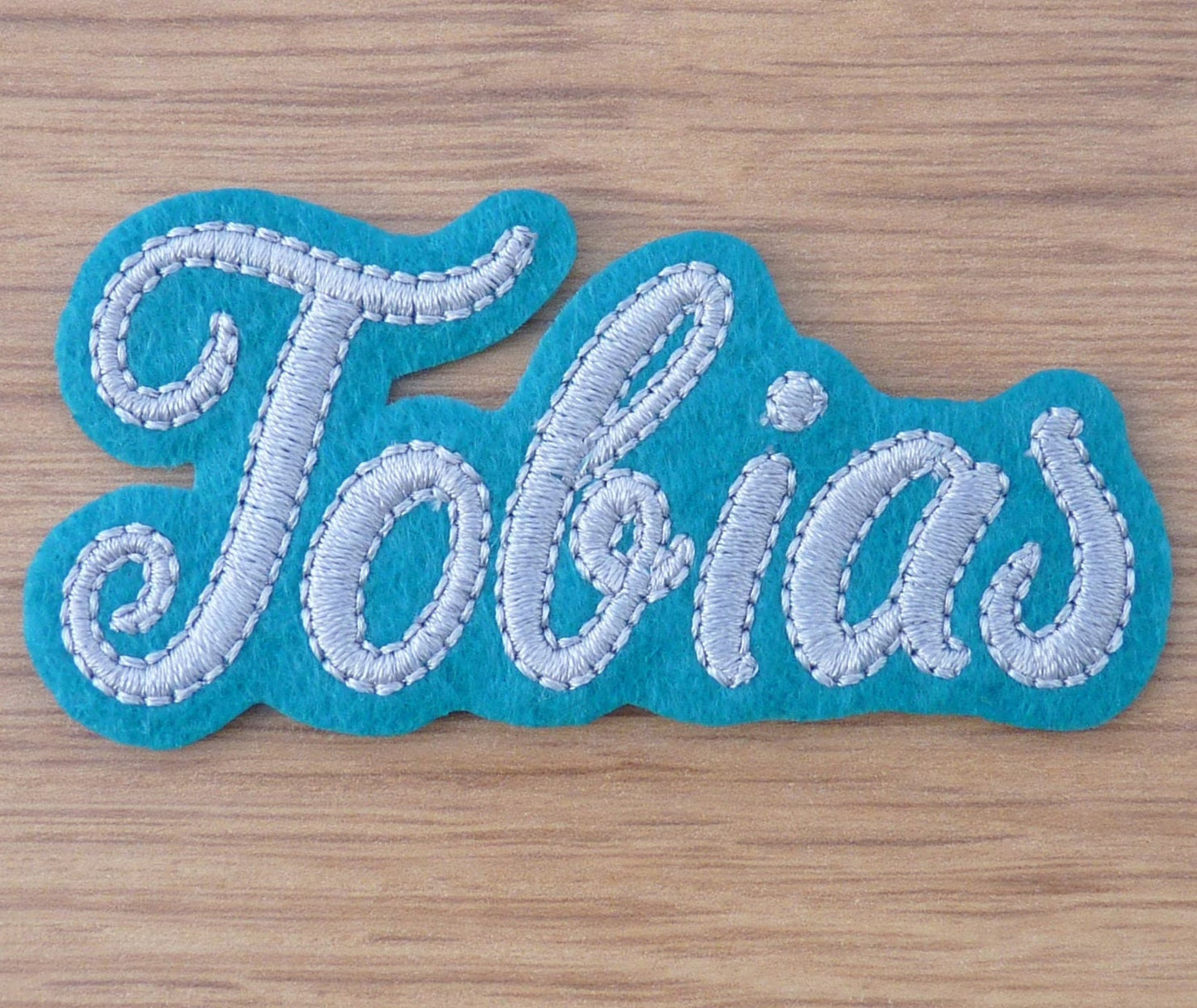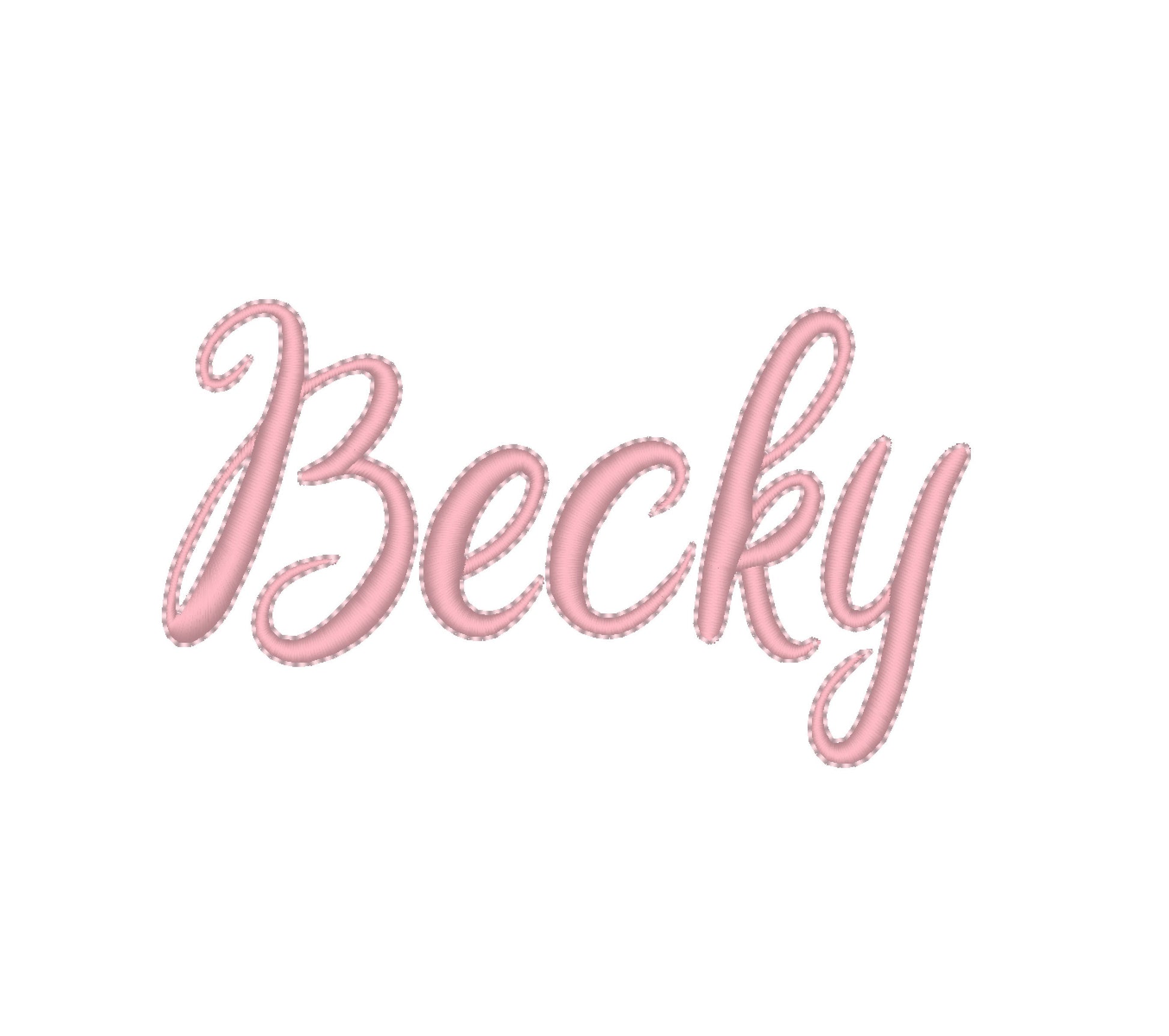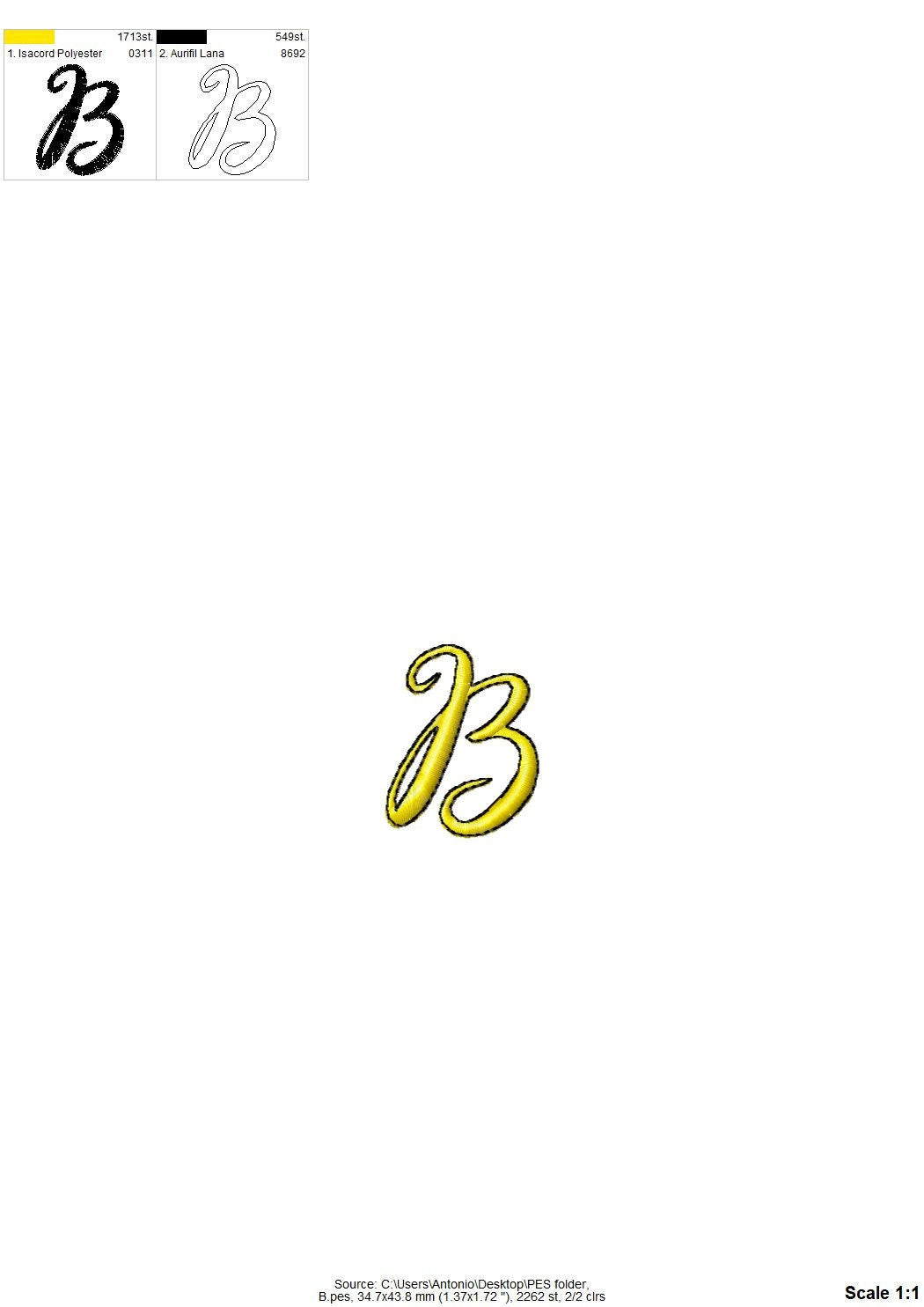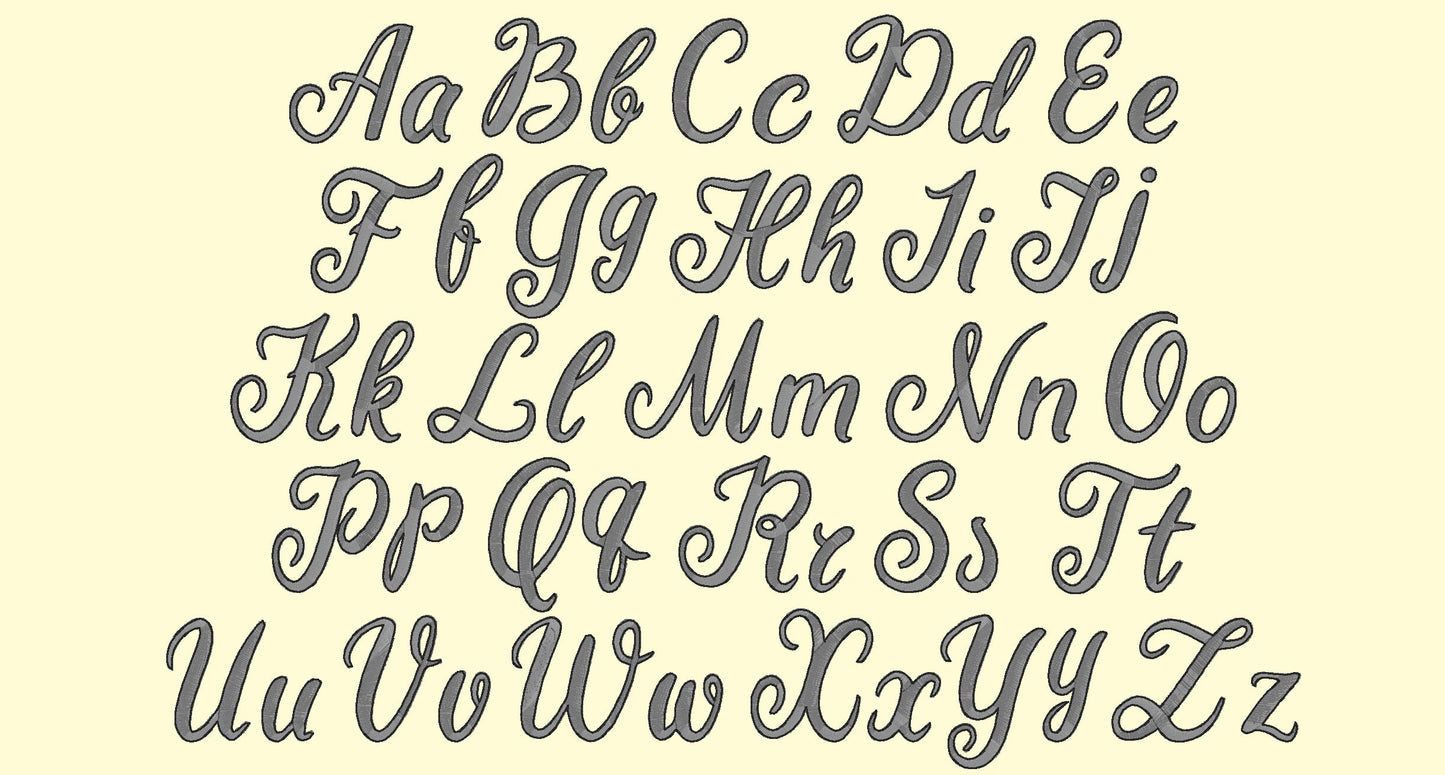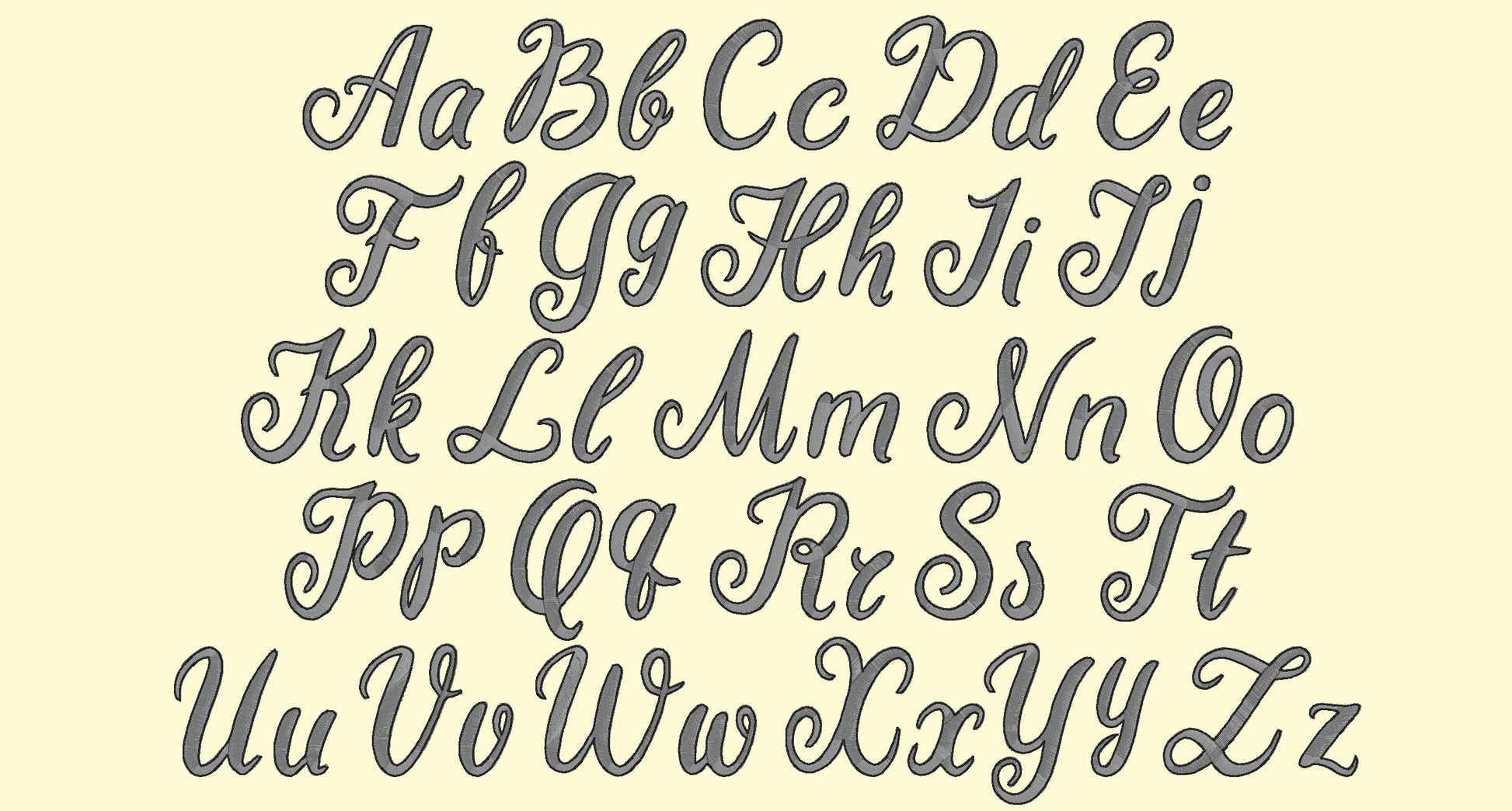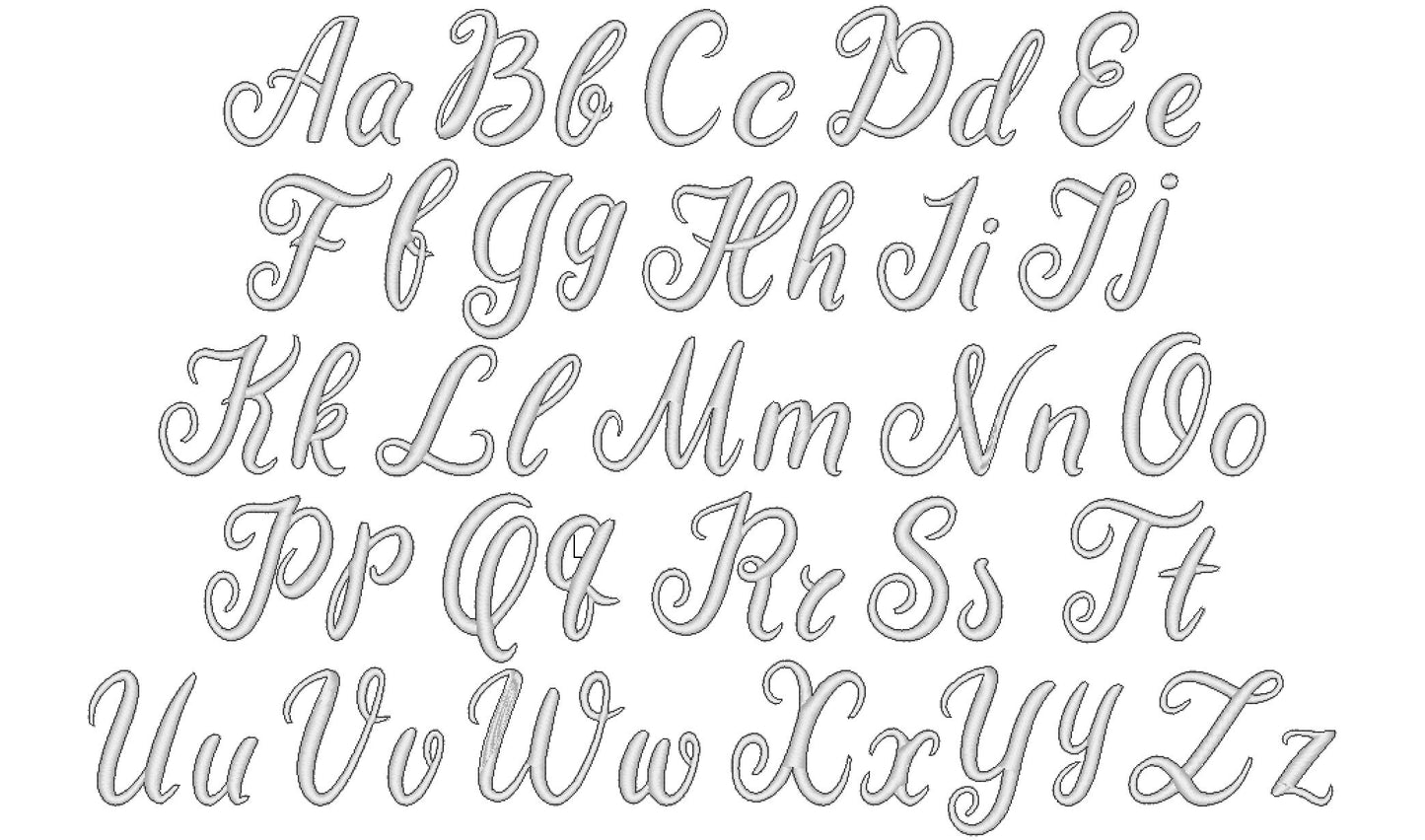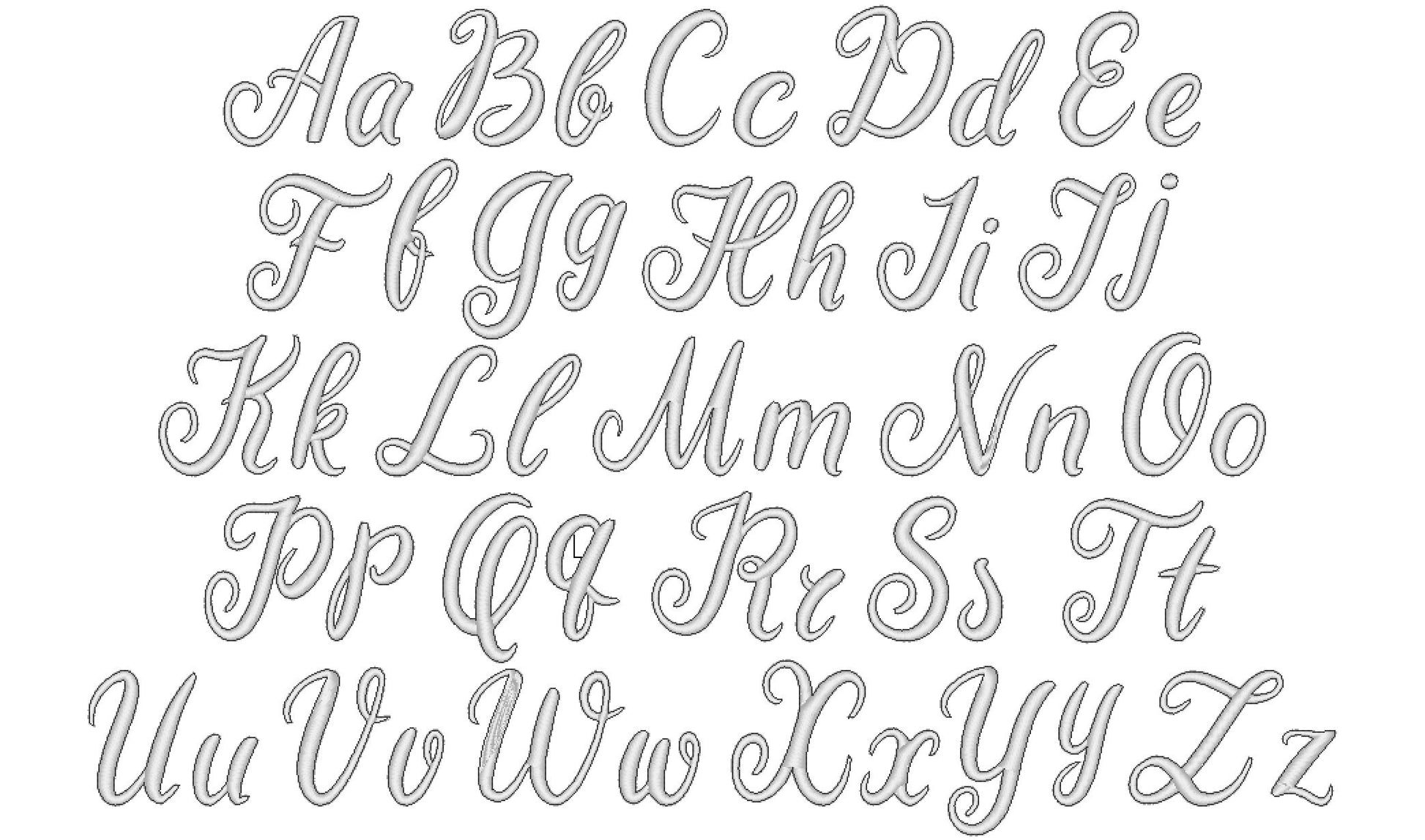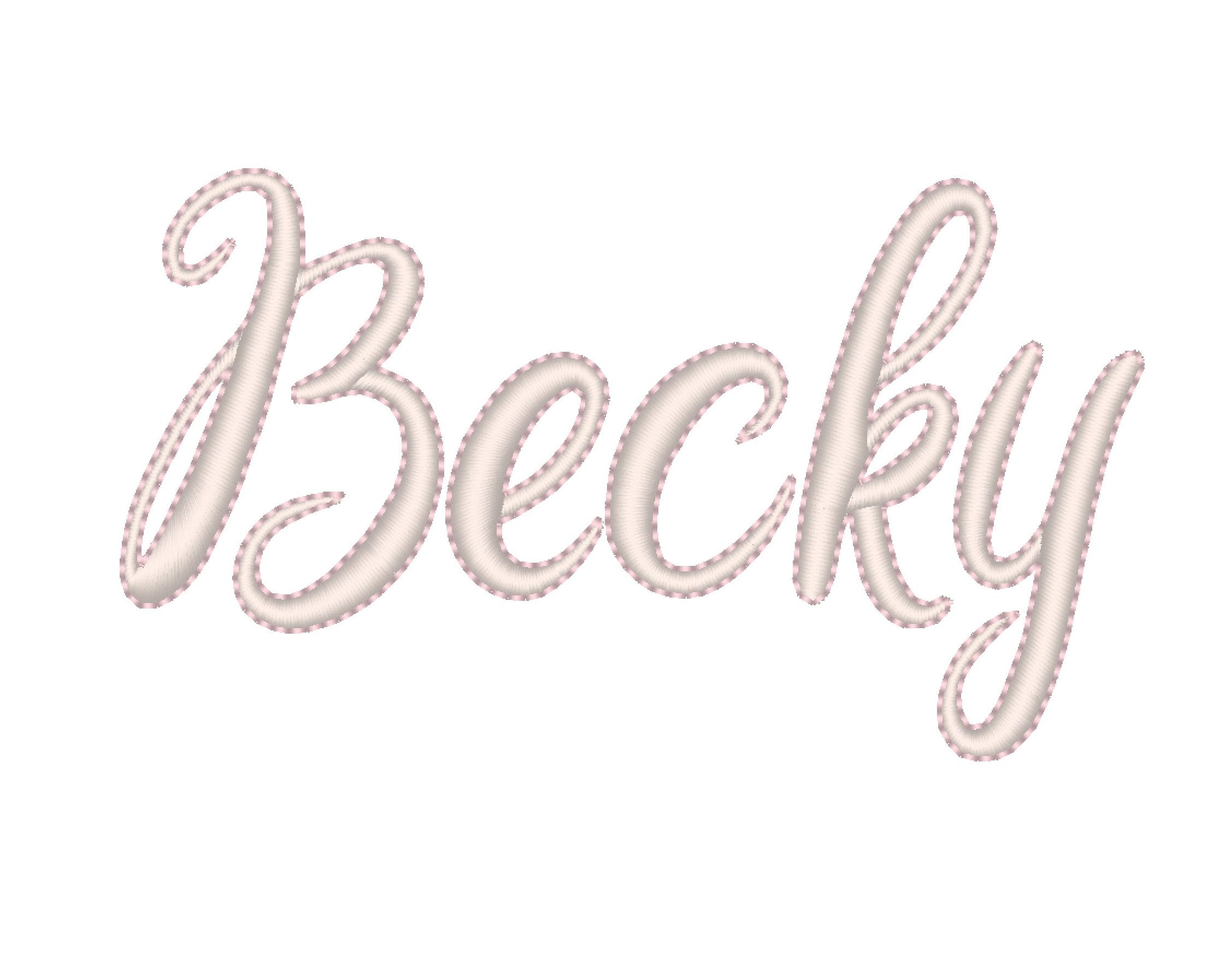
Or click to open the linkClassy delicate Handwriting Satin with bean outline monogram curly cute Font machine embroidery designs INSTANT DOWNLOAD assorted sizes & BX
Whole alphabet uppercase and lowercase letters.